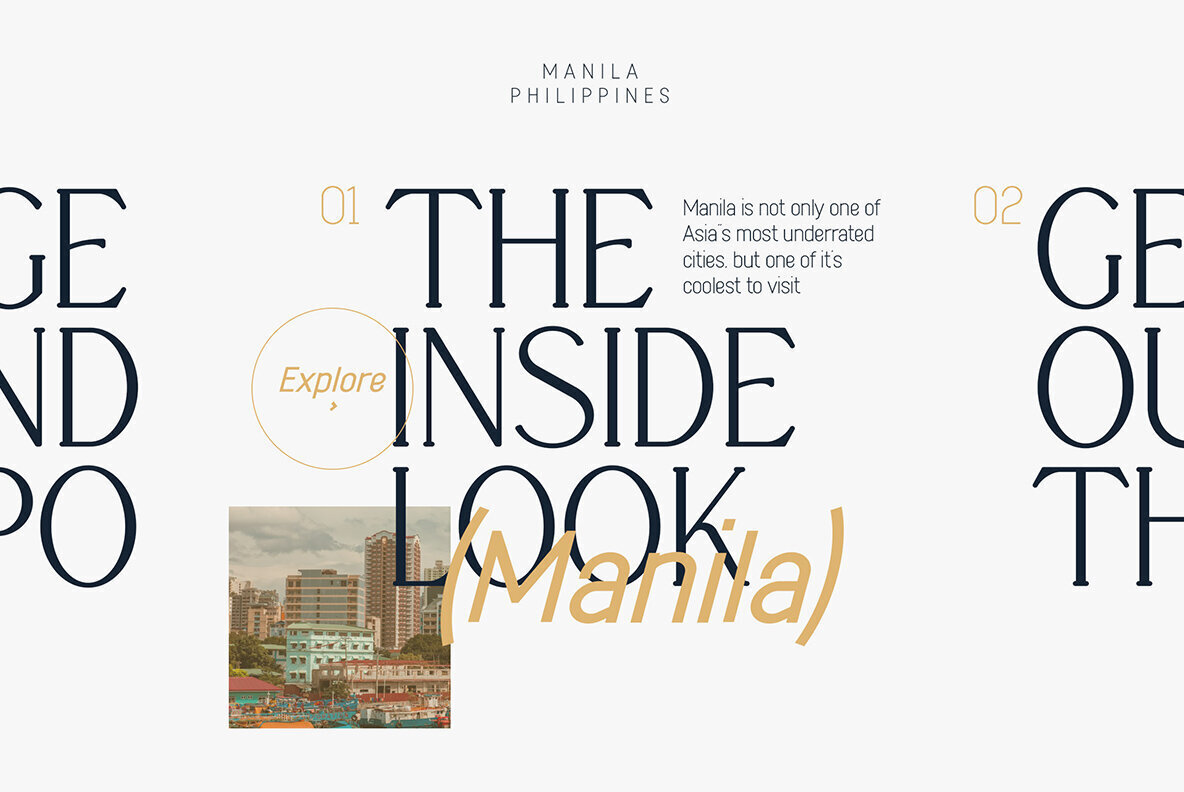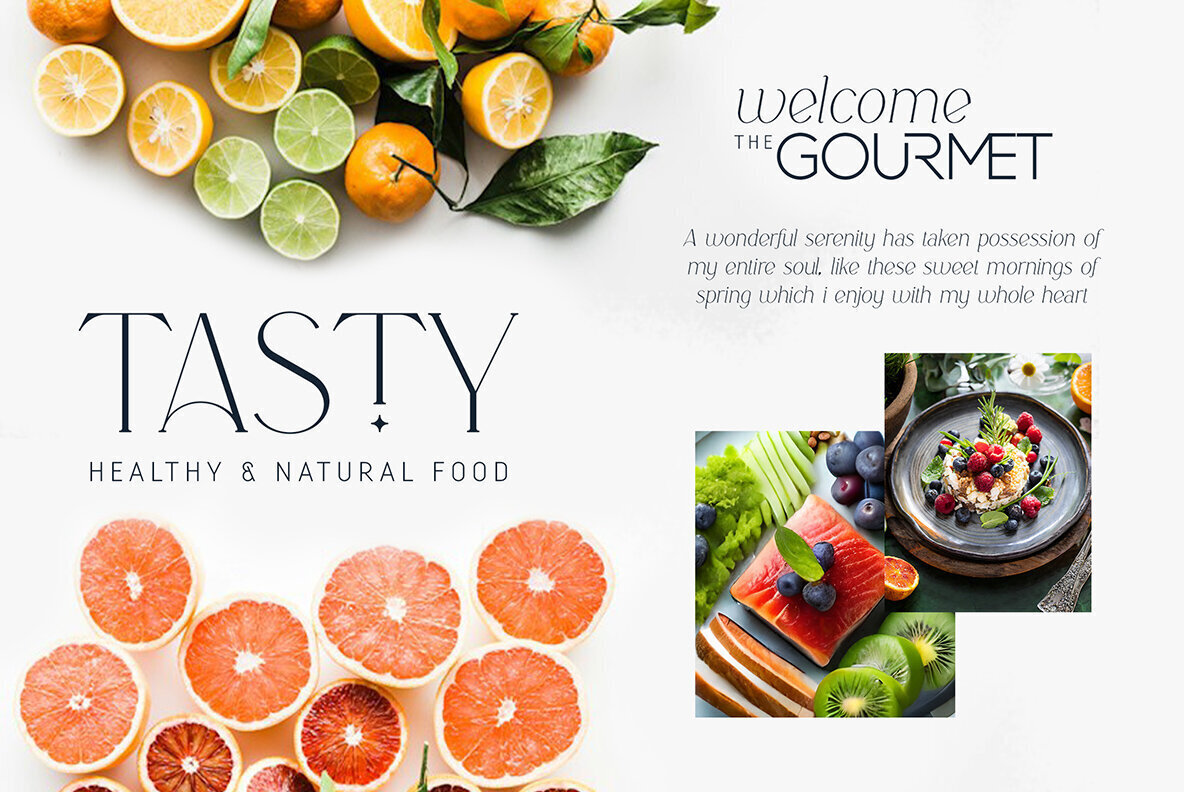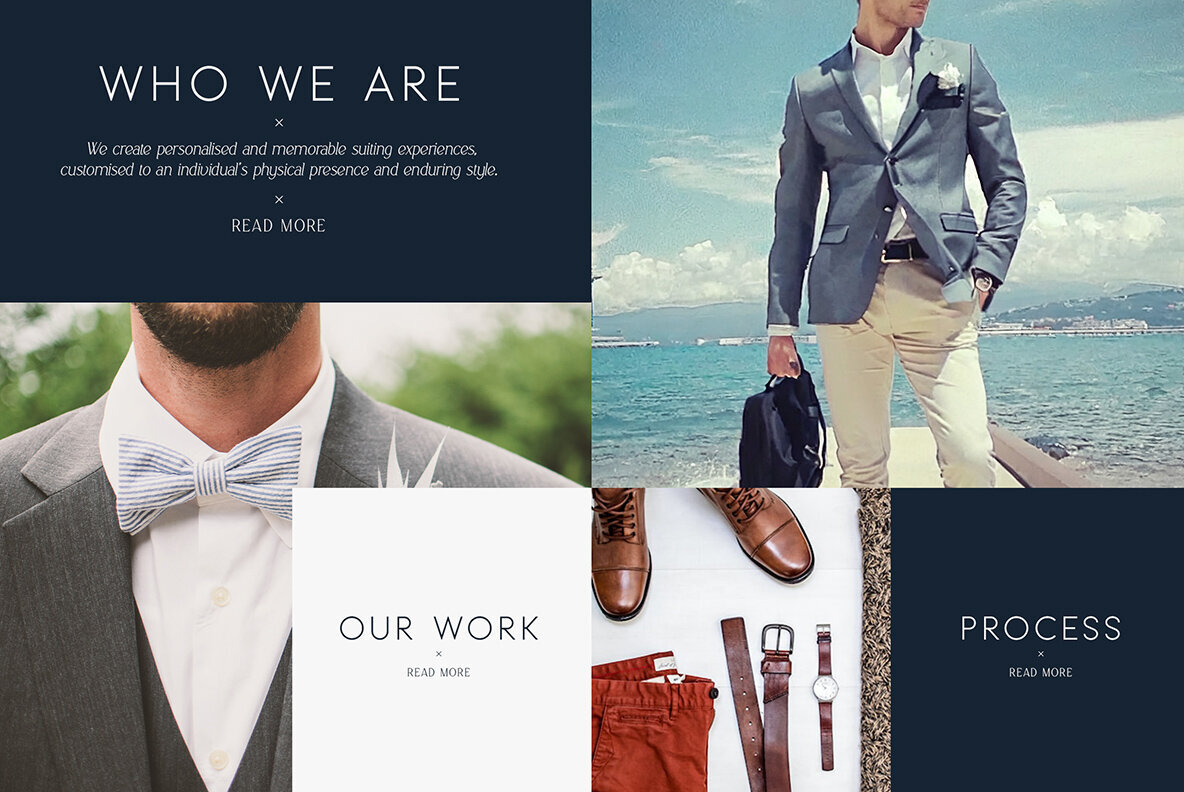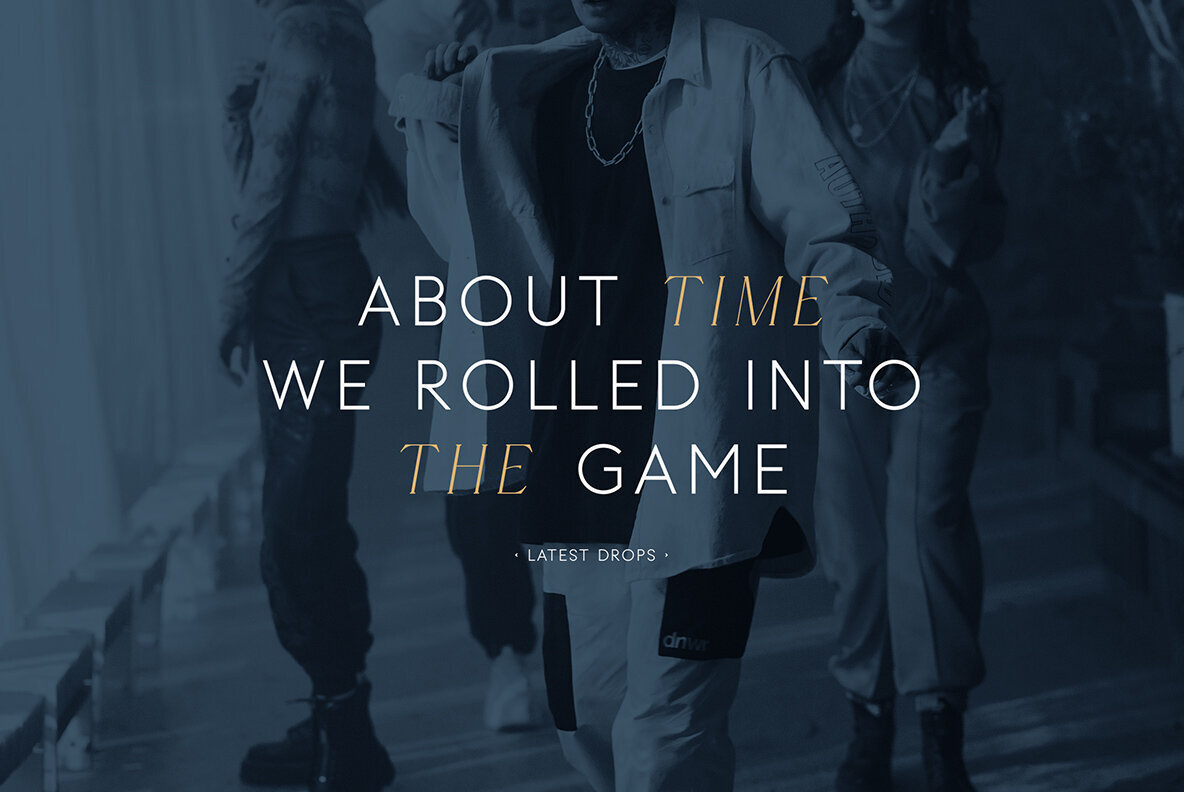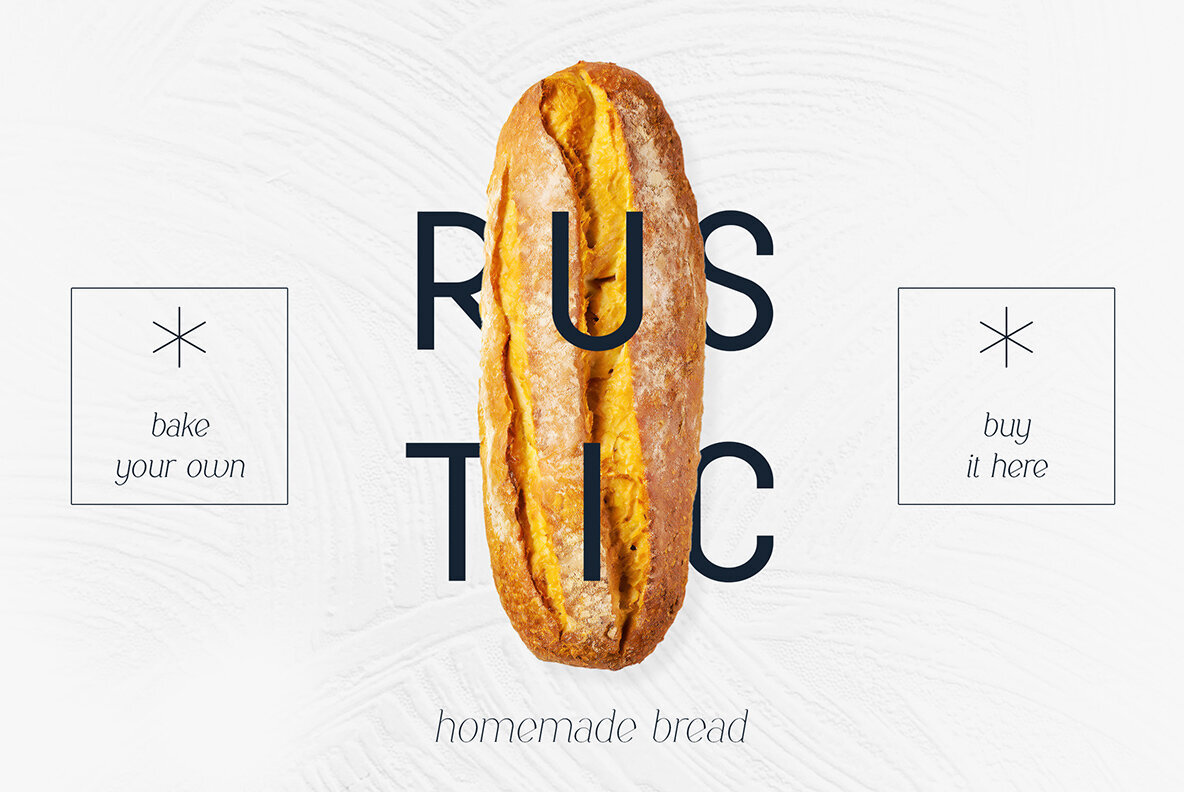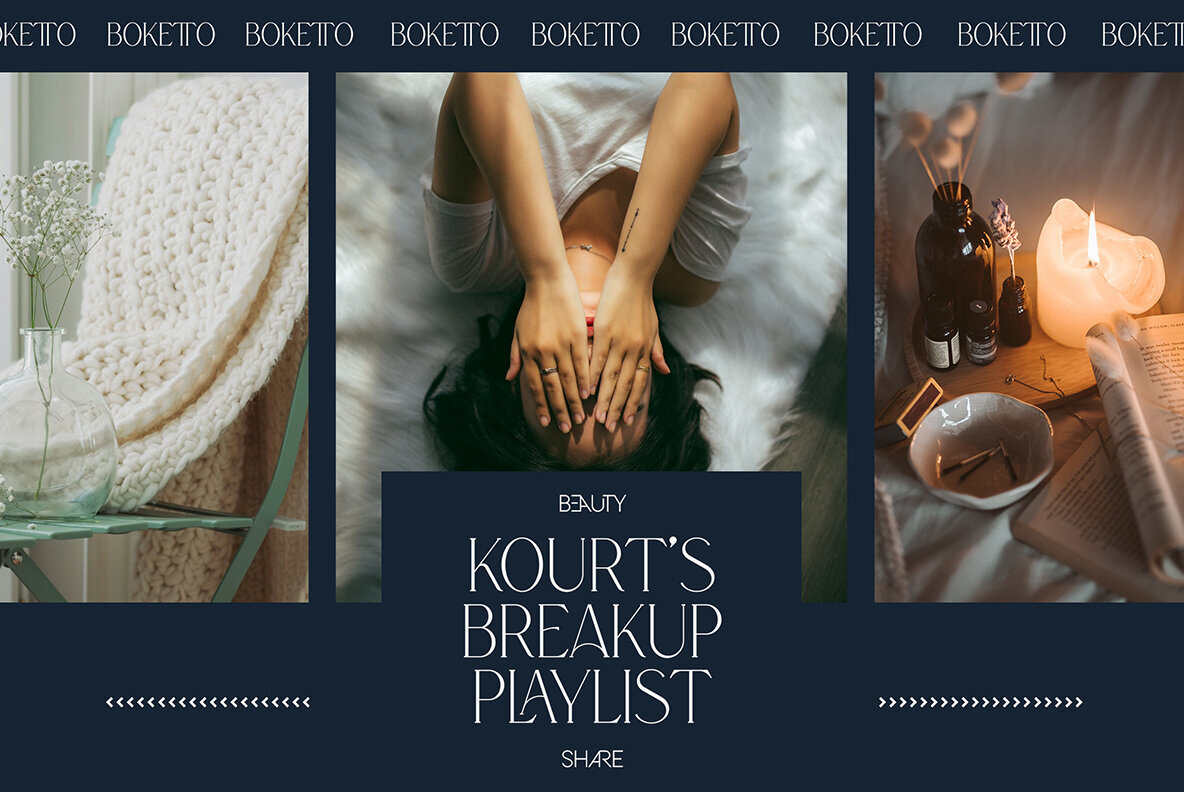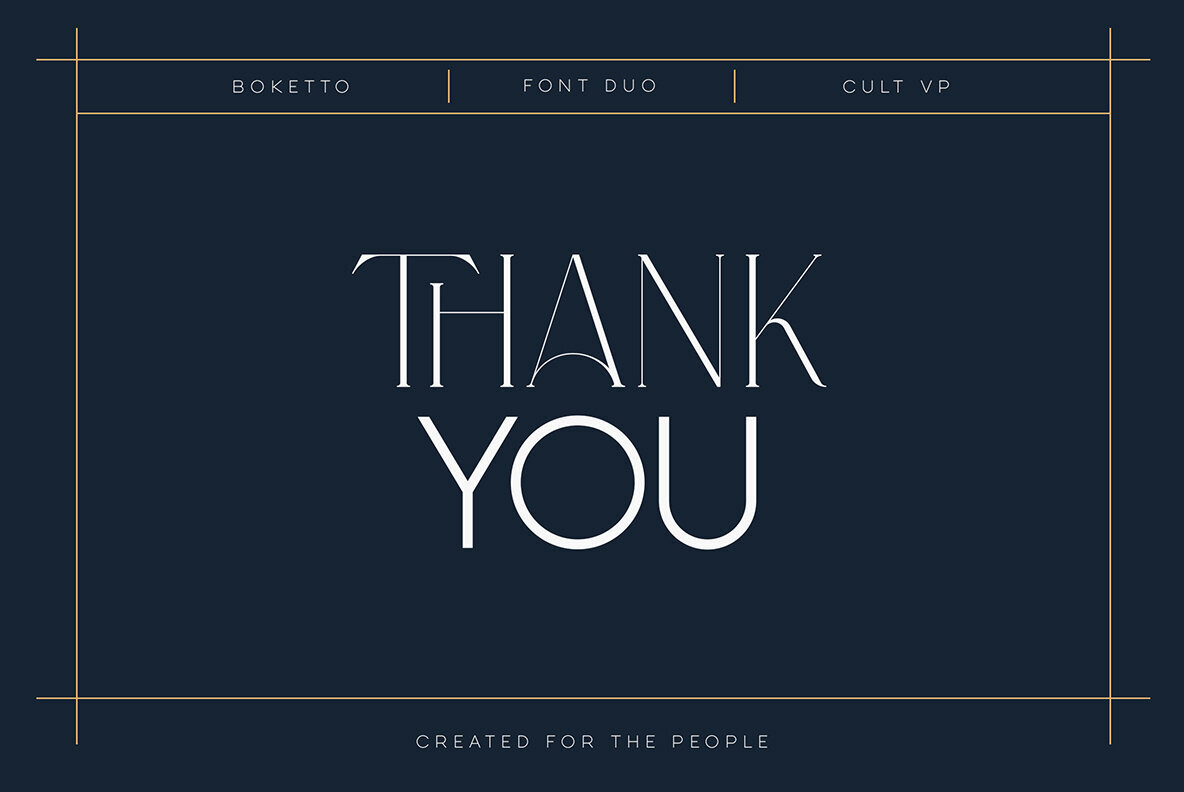
When Boketto meets Cult VP Font
When Boketto gracefully converges with Cult VP, an unparalleled font duo is born, fusing elegance with modernity. This dynamic pairing boasts a seamless blend of 44 exquisite styles, combining Boketto's versatile 24 font styles, including its chic variations and italics, with Cult VP's 20 contemporary renditions. With comprehensive support for 87 languages and an array of alternate characters and ligature glyphs, this duo offers a gateway to a truly distinctive and inspiring typographic journey, unlocking a realm where sophistication meets creative innovation. Boketto features Cult VP features